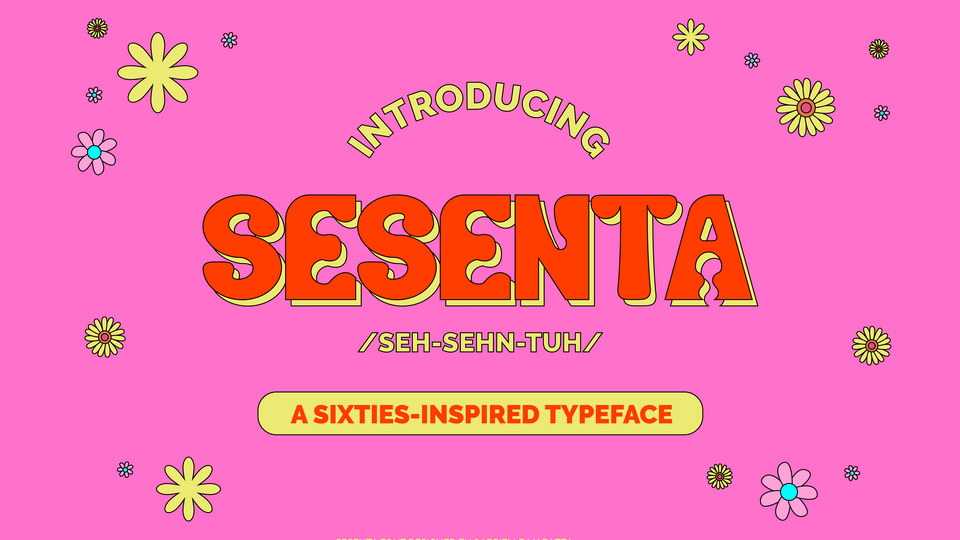
Download Sesenta font, an all caps display typeface inspired by hippie culture and the flower power movement of the 60s. Sesenta is fun, stylistic, and high on peace and love.